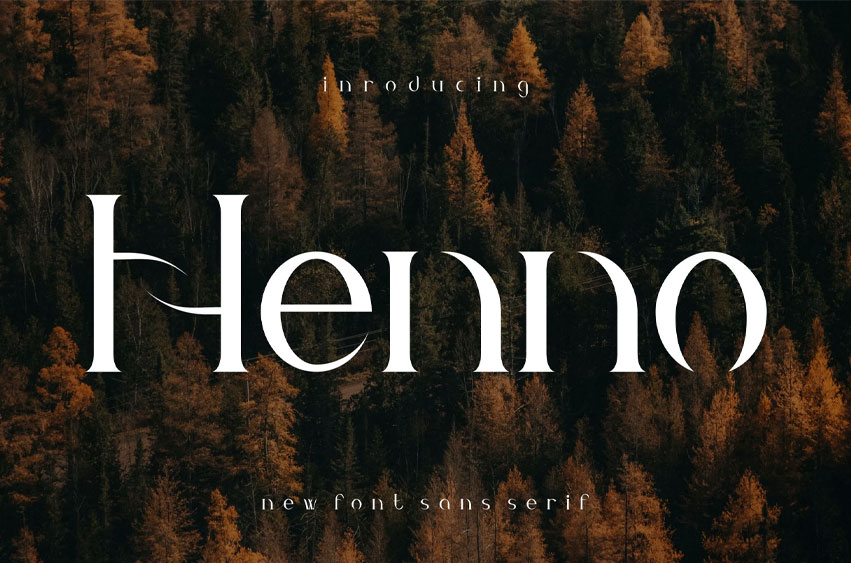
Henno Font
Henno Font Display Font Elegant Font is an awesome and authentic display font. This font is well-suited for a variety of contexts, such as print design, promotional materials, or magazine layouts.